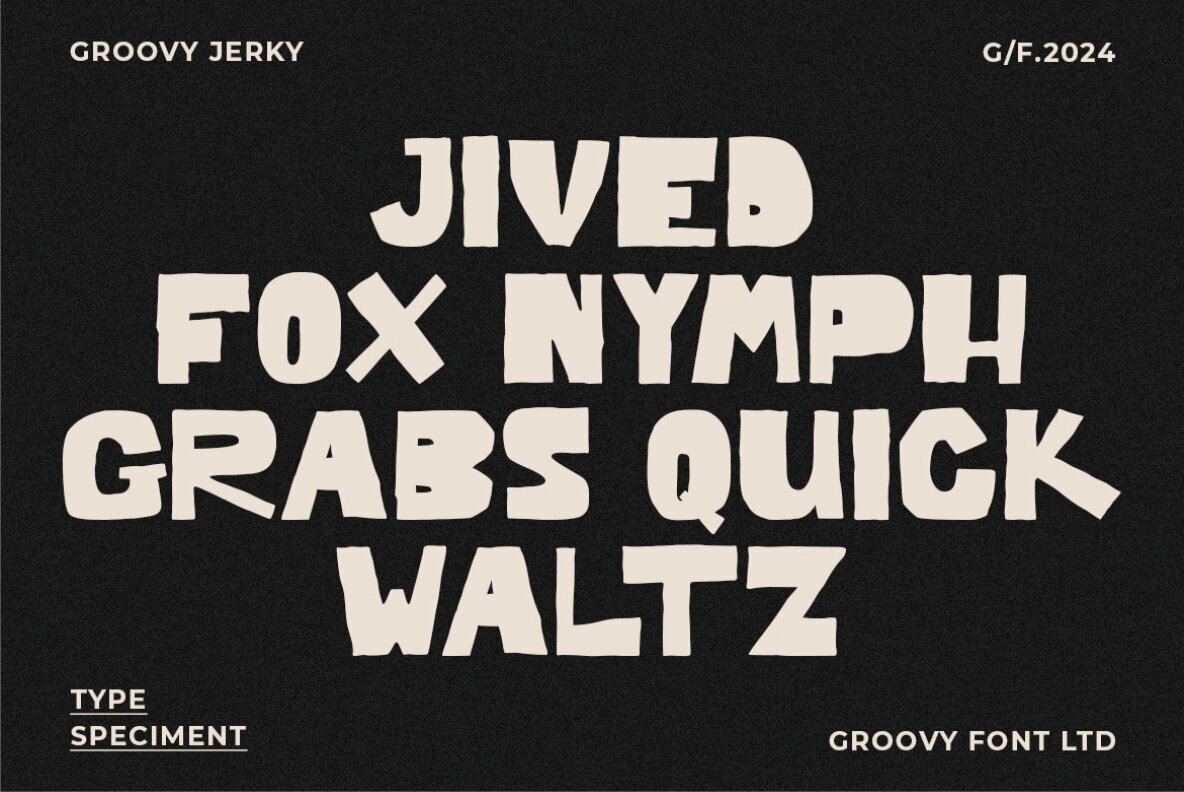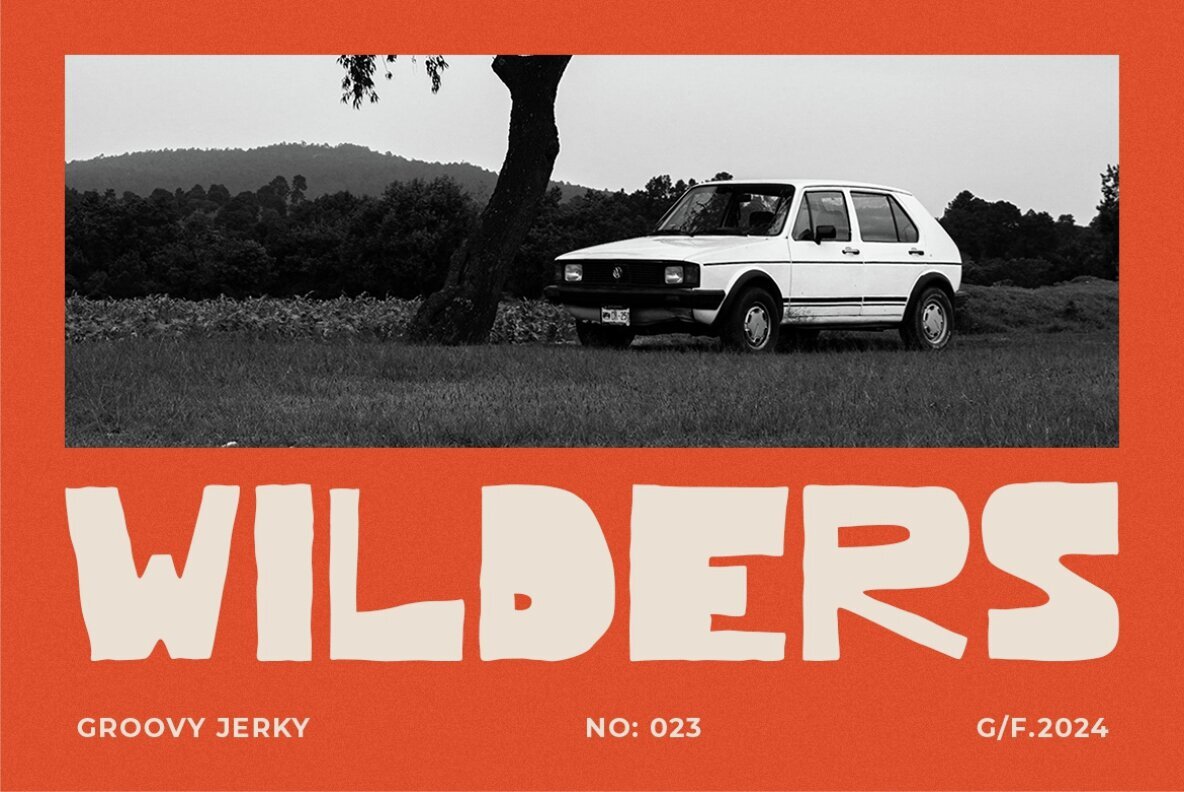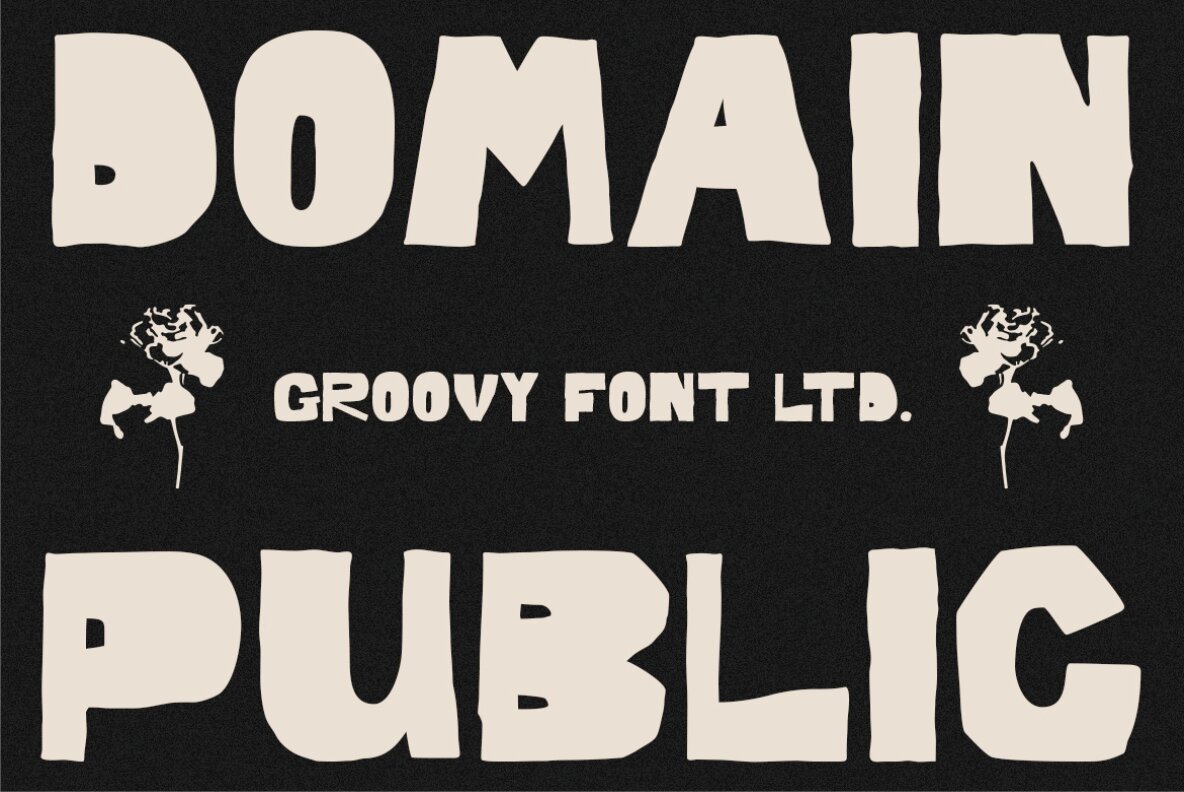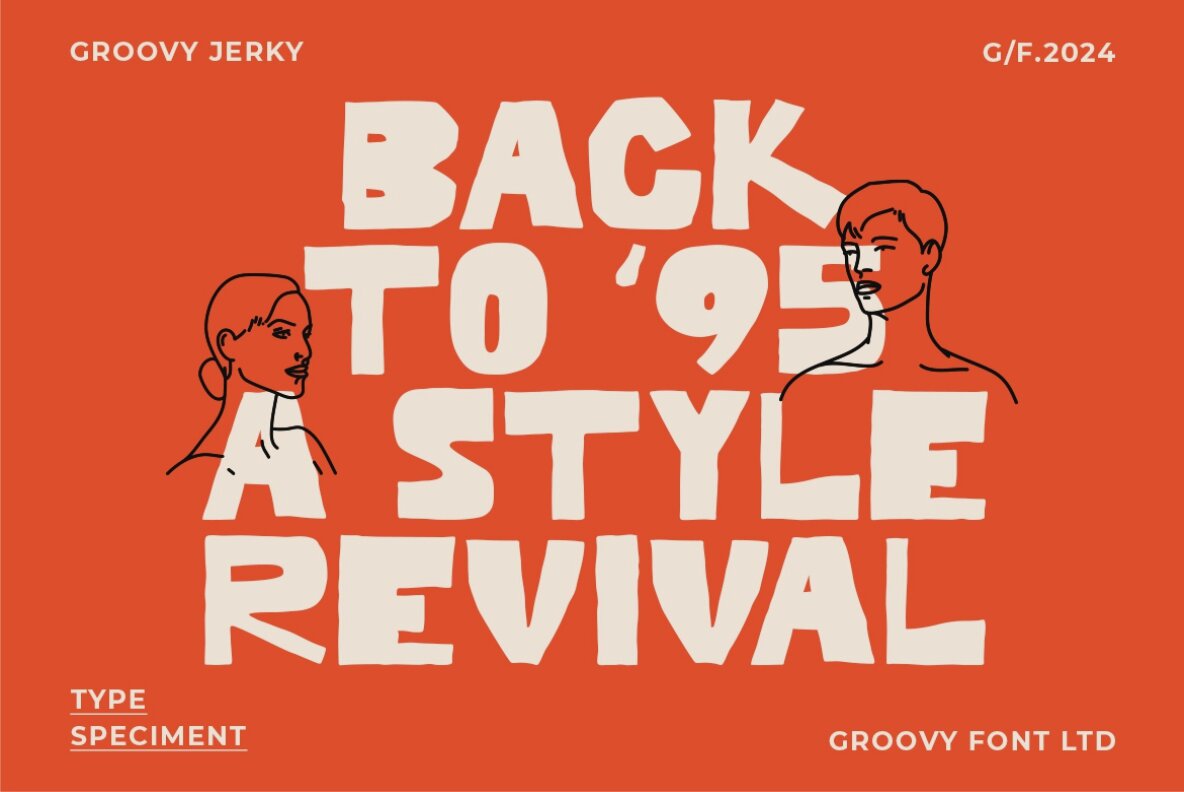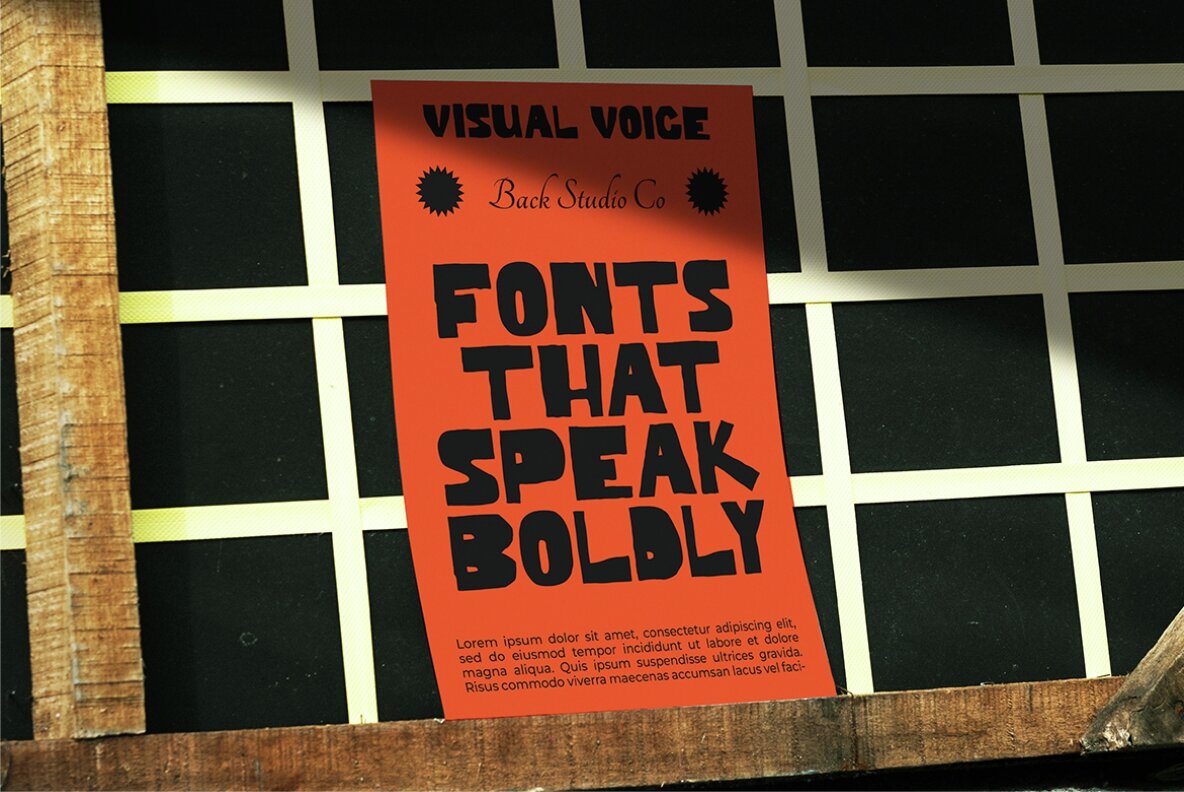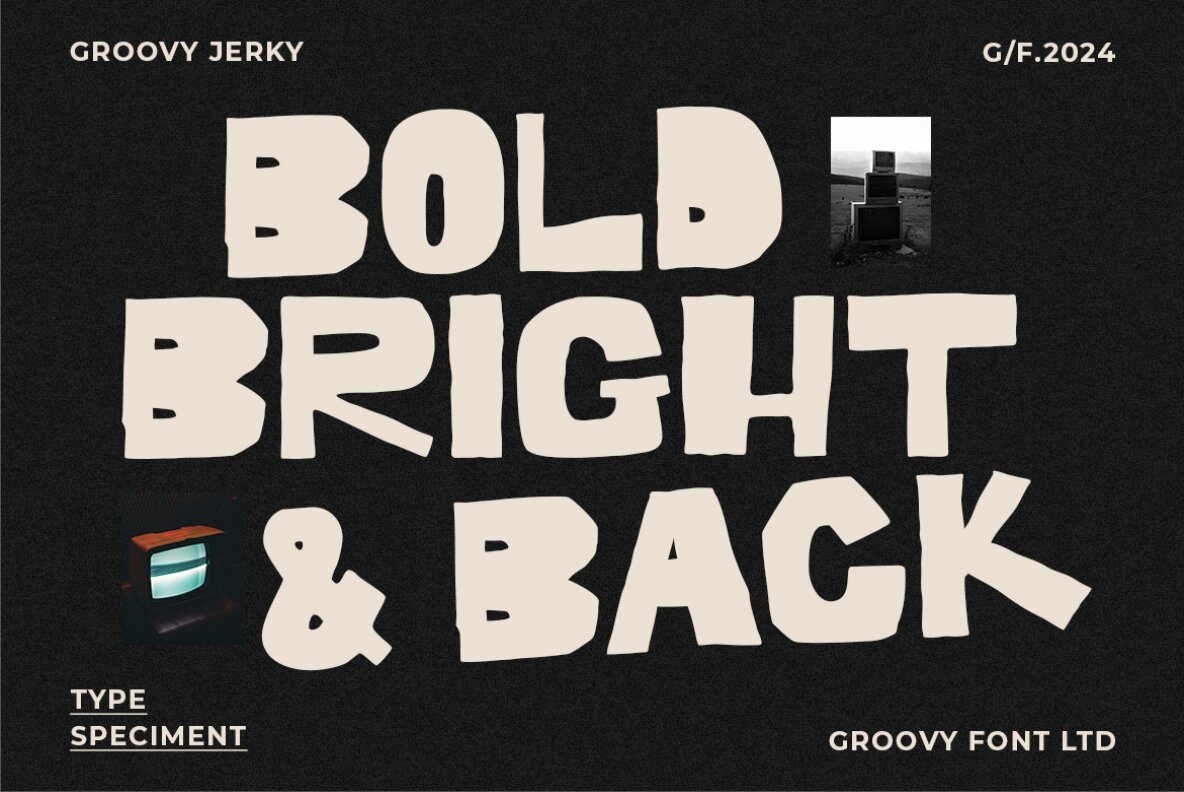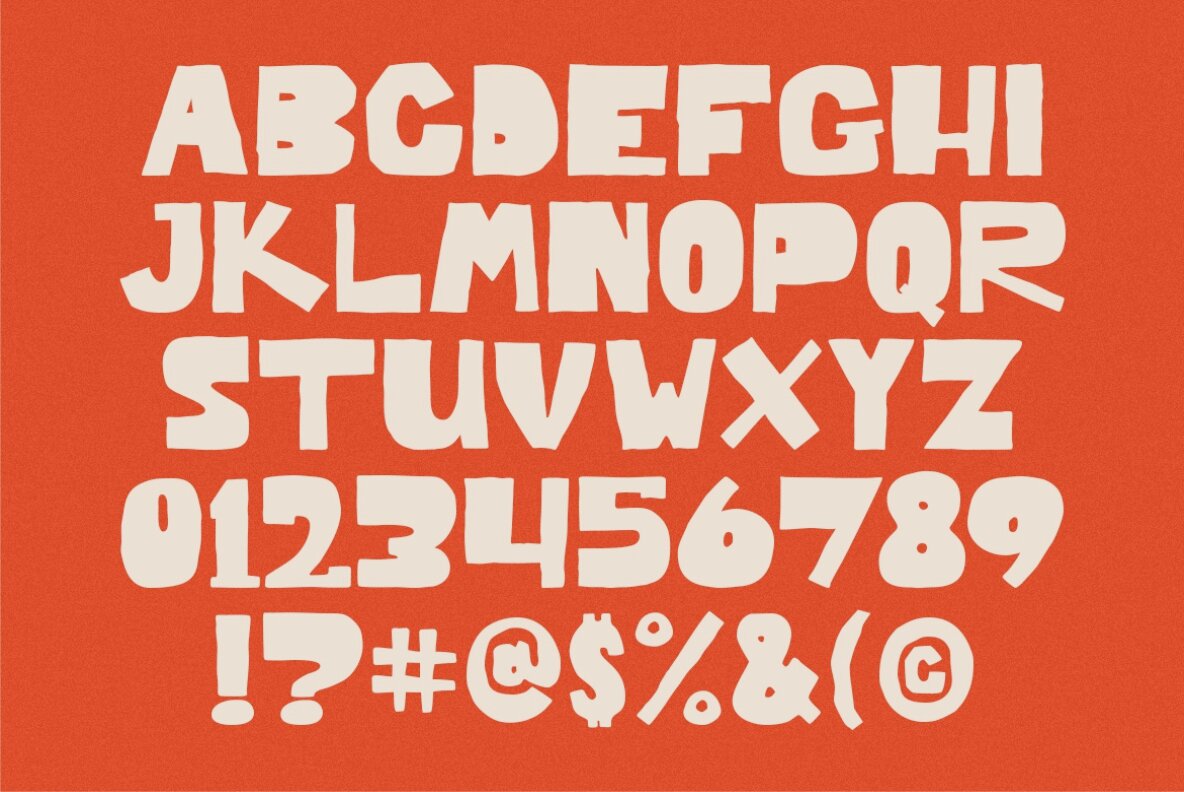
Groovy Jerky Font
Groovy Jerky
Groovy Jerky font is an organic hand-drawn font that exudes a charming retro and vintage aesthetic. Created with an artistic touch, this font offers a unique and distinctive appearance that brings to mind handcrafted and nostalgic design elements. The organic texture of Groovy Jerky adds a sense of warmth and authenticity to any project it is applied to, making it an excellent choice for creating a vintage-inspired look. Whether used in branding, packaging, or graphic design, this font adds a touch of whimsical character and artisanal flair, evoking a sense of nostalgia and creativity.